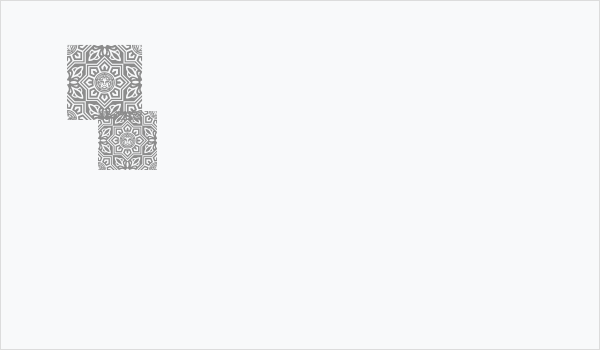
ObeyVenice Font
ObeyVenice Description
A bold, geometric decorative pattern featuring symmetrical star motifs and intricate floral elements in a high-contrast black and white design.
| Overall Style | Ornate, vintage-inspired decorative |
| Use Case | Decorative backgrounds, packaging, branding elements |
| Proposed Projects | Wall art, textiles, packaging, branding for luxury or artisanal products, and decorative backgrounds. |